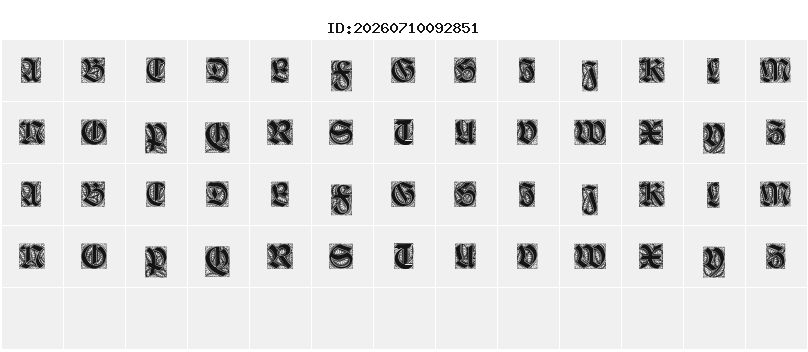
• Font Name: Ehmcke-Schwabacher Initialen
• Designer: Dieter Steffmann
• Description: Zierbuchstaben zur Ehmcke-Schwabacher. Geschaffen 1920 von Fritz Helmuth Ehmcke.